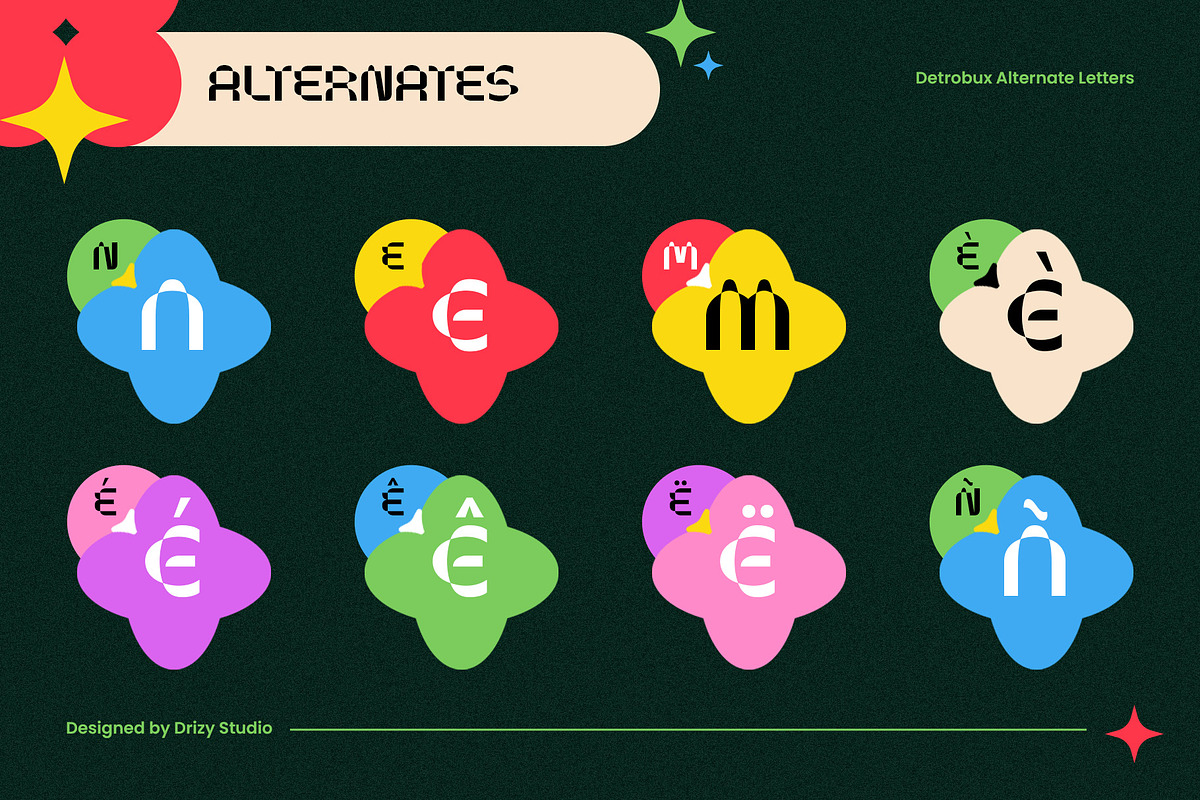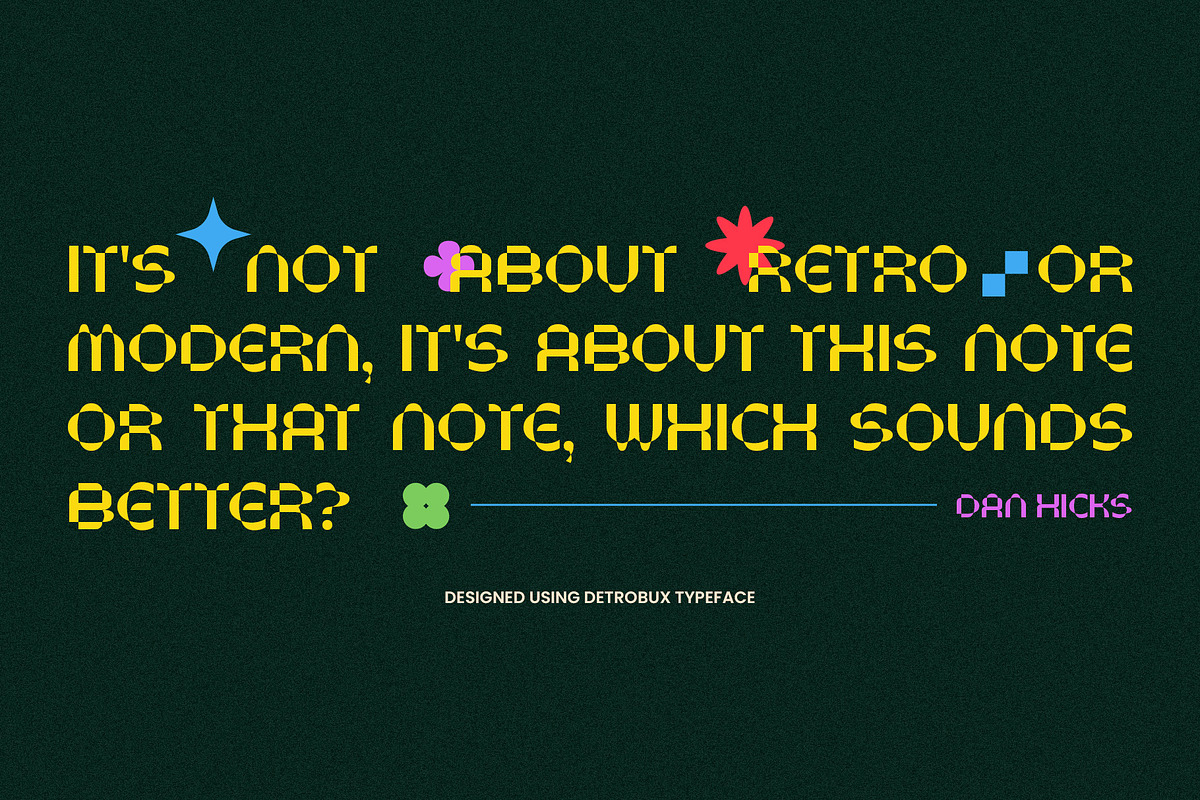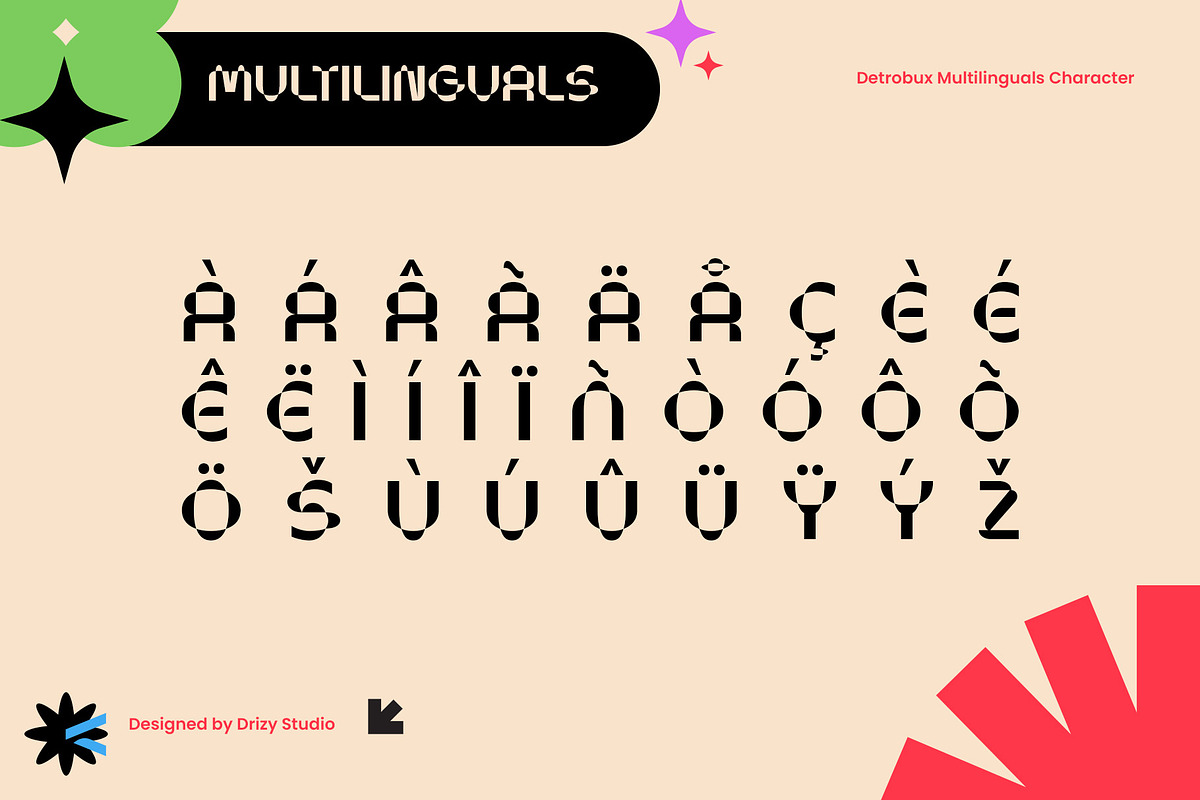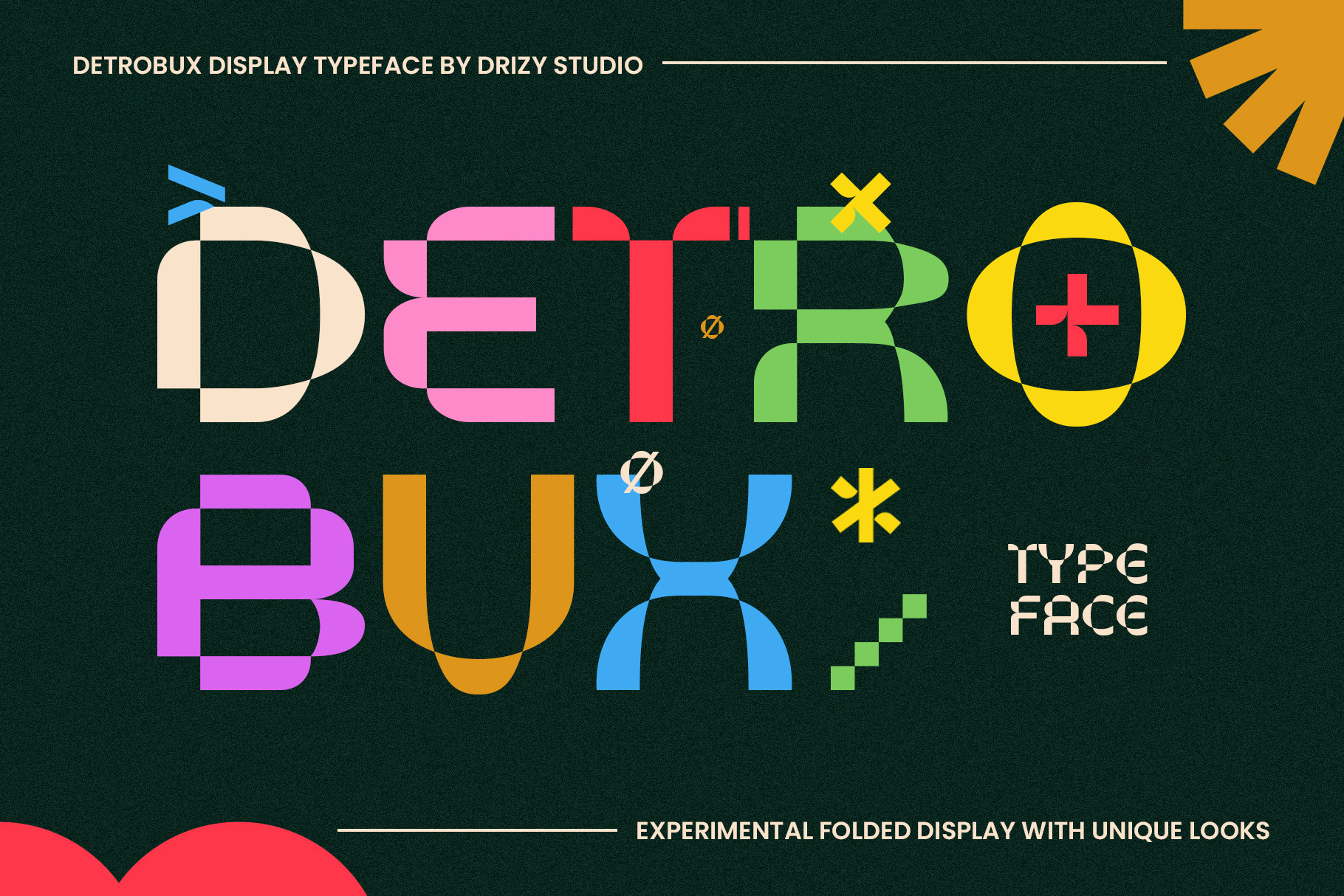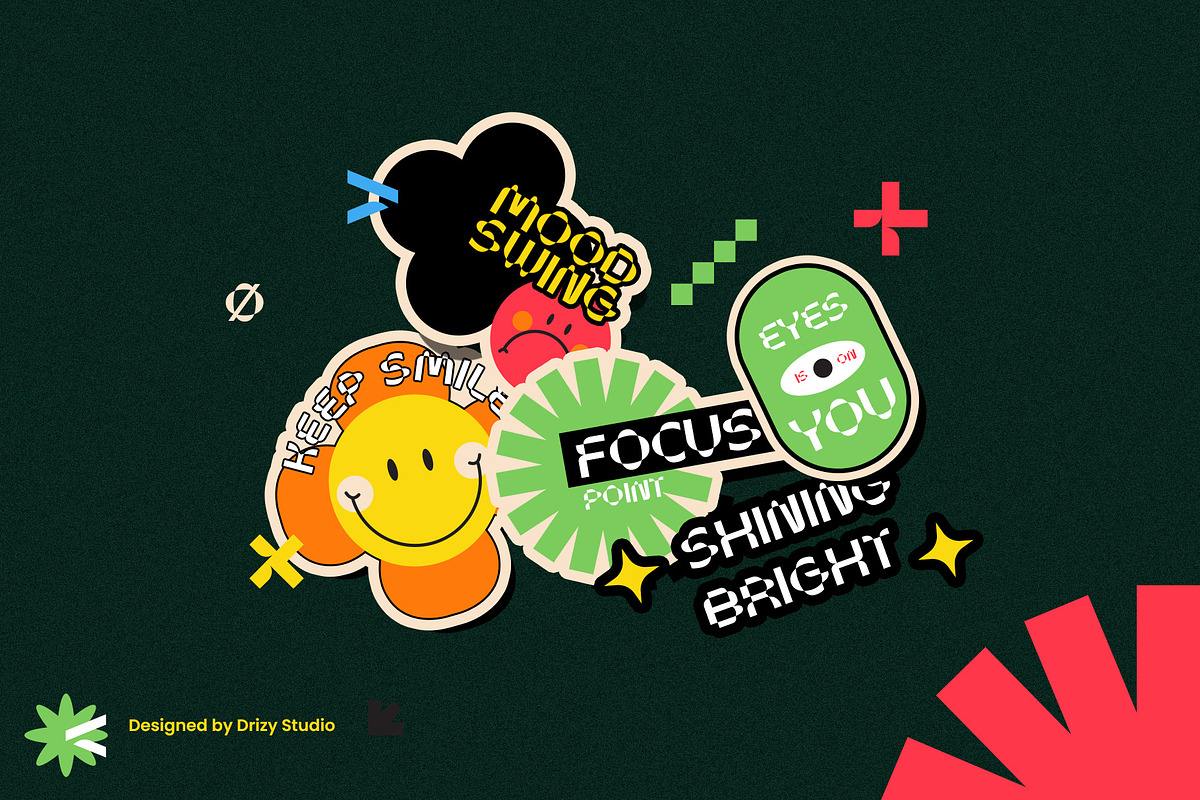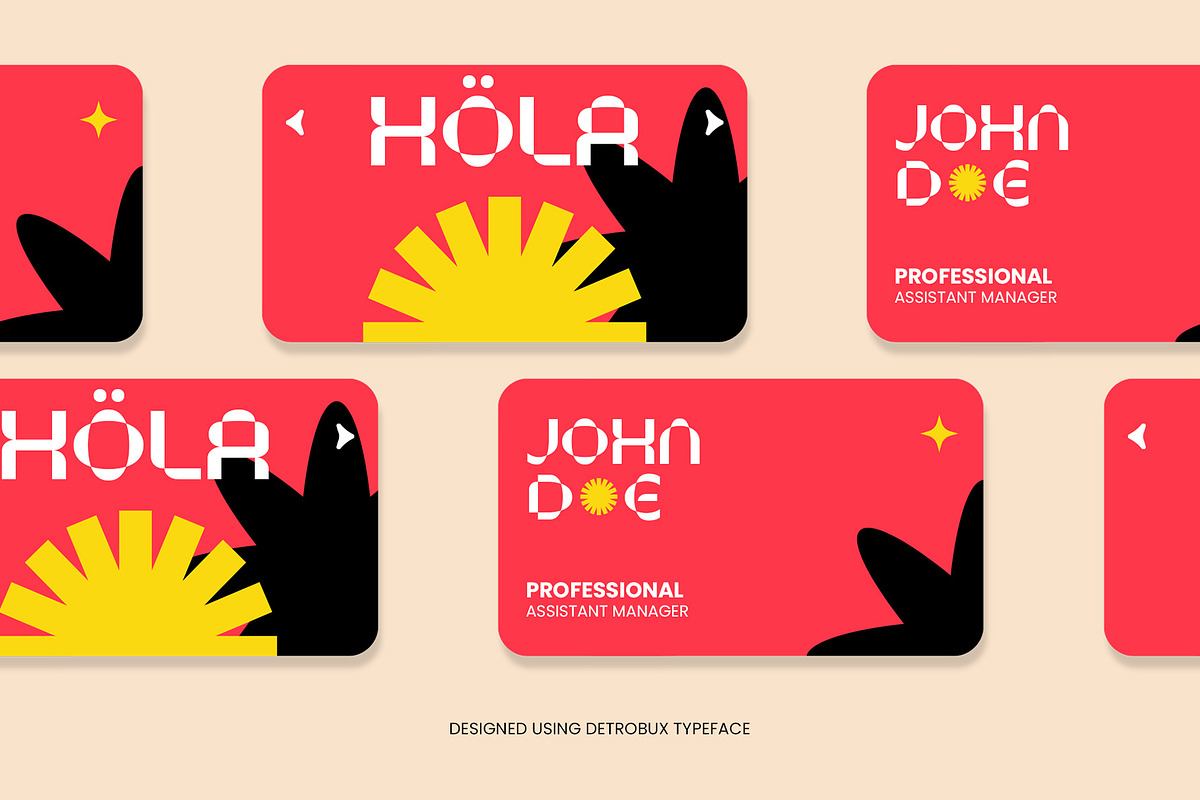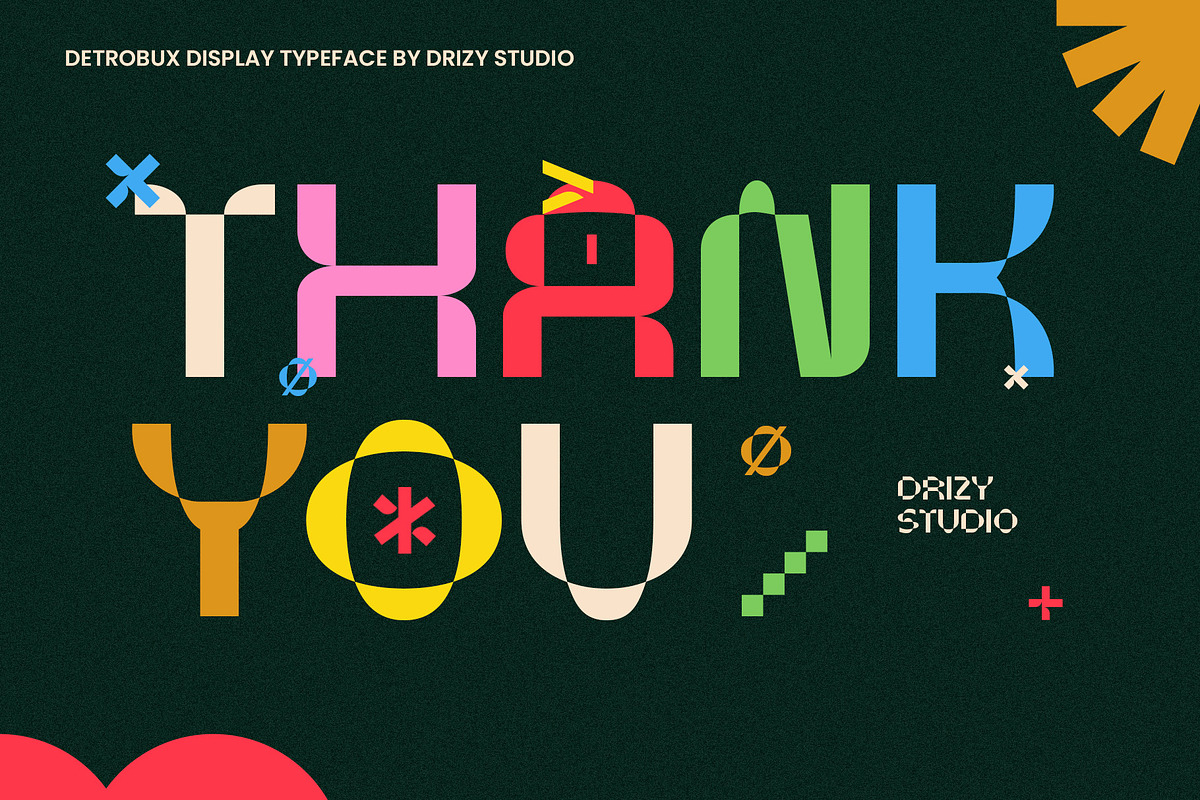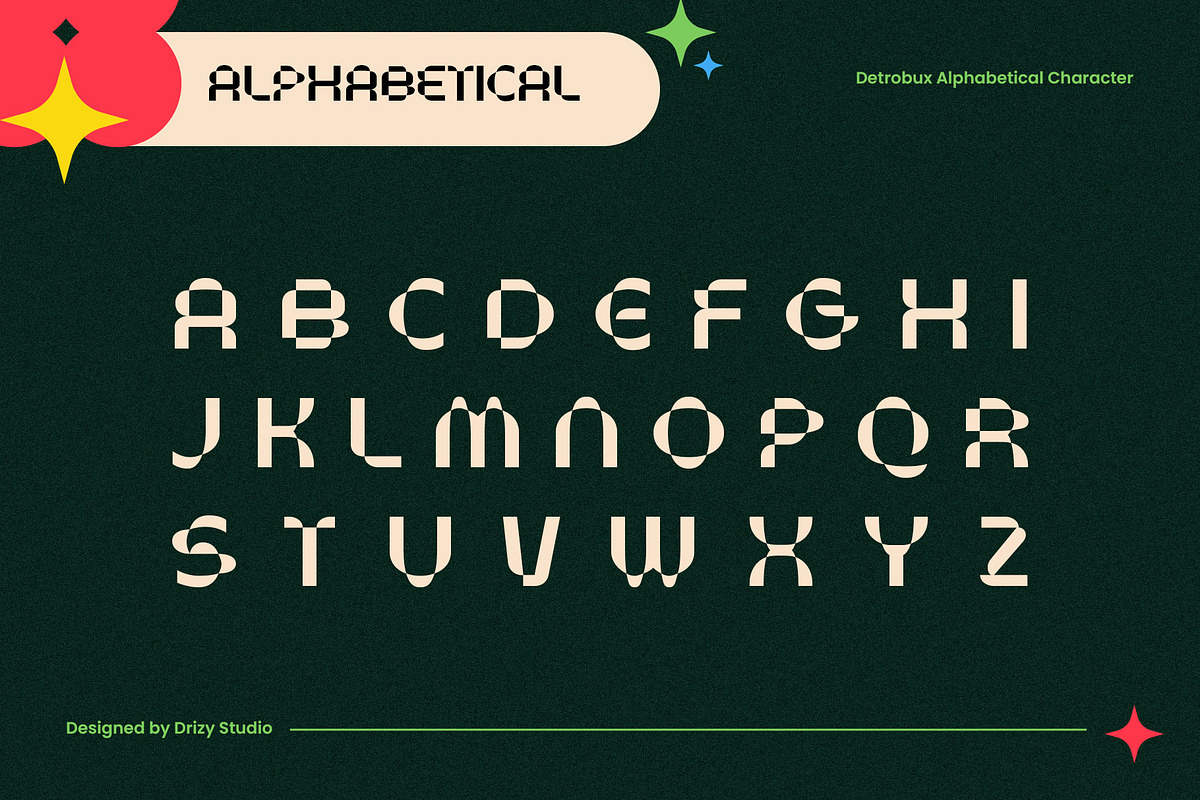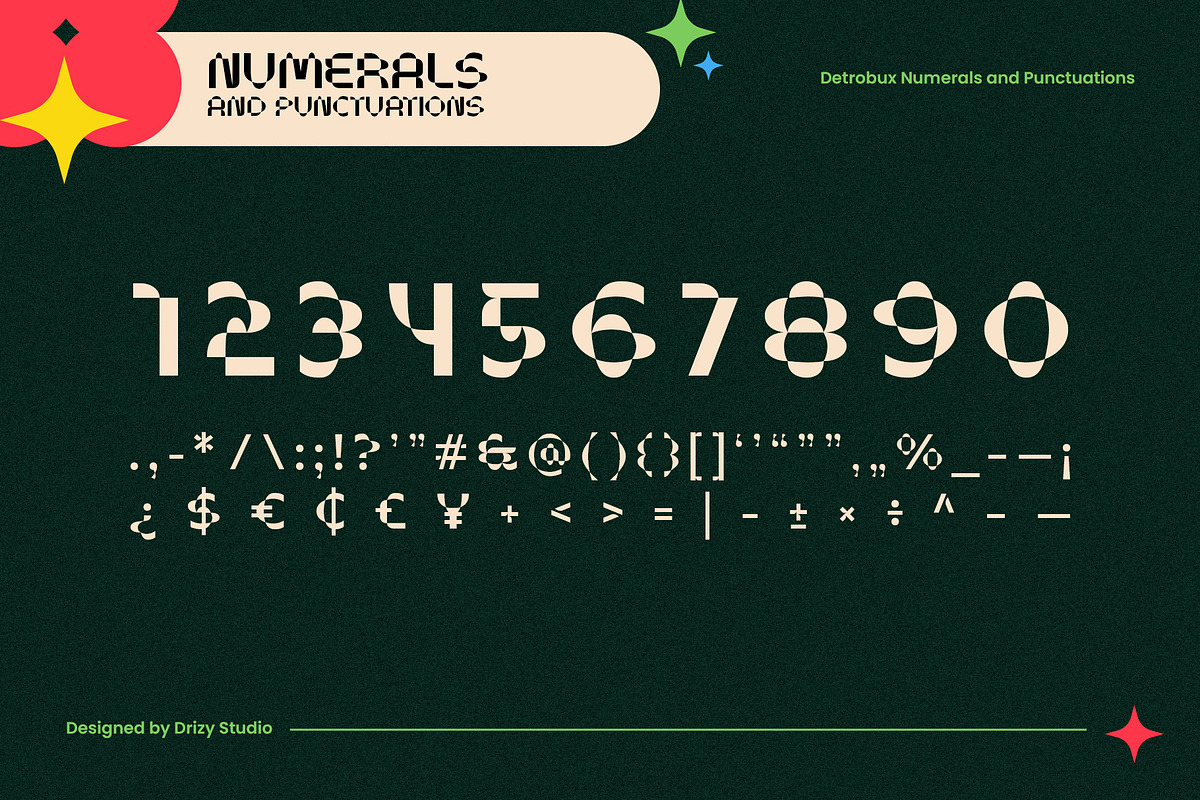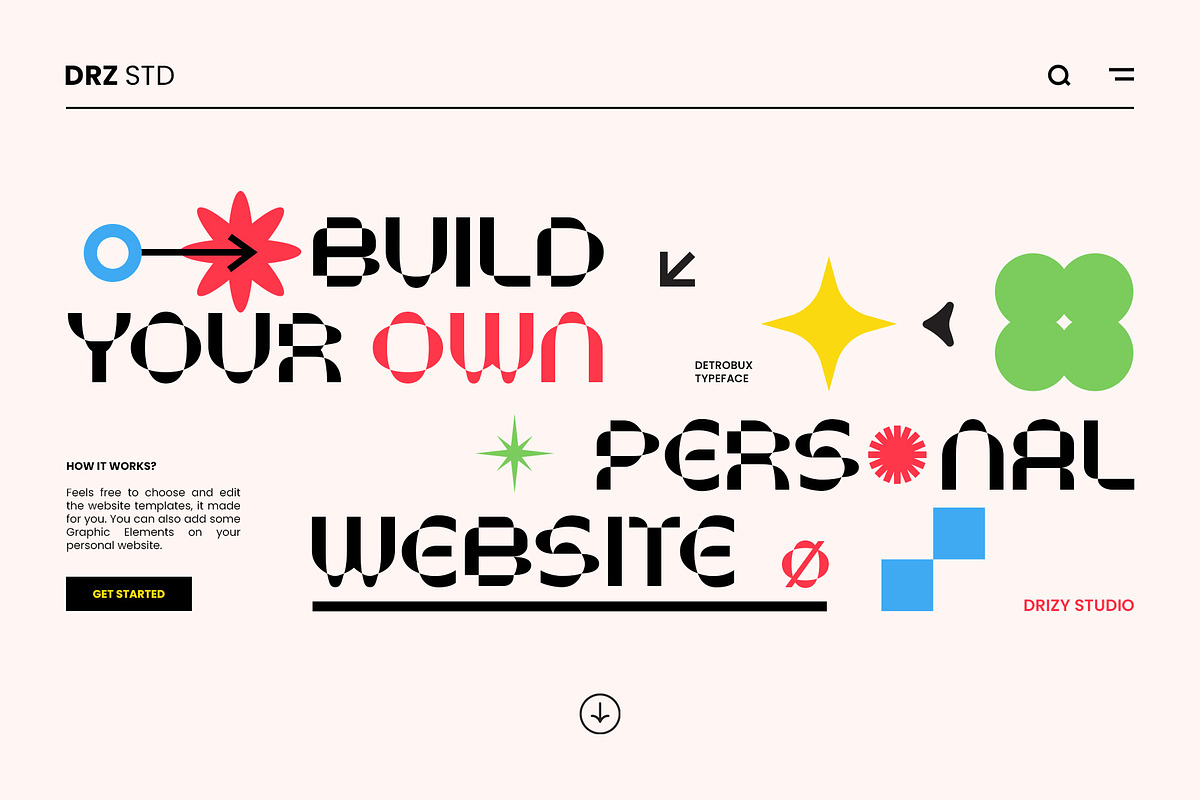
Detrobux - Experimental Folded Font
Detrobux is a unique and innovative folded font that challenges the boundaries of traditional typography. It's not just a font; it's an experimental work of art in the form of letters and characters. Each letter is meticulously crafted to appear as if it's been folded and creased, giving it a three-dimensional and tactile quality.
Detrobux features: Character Set Punctuation & Numbers Multilingual Support Alternates
Elevate and explore the design possibilities with this folded font!